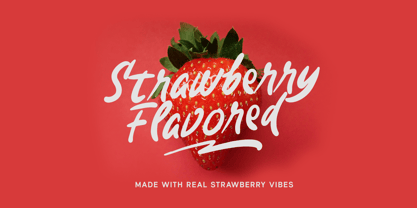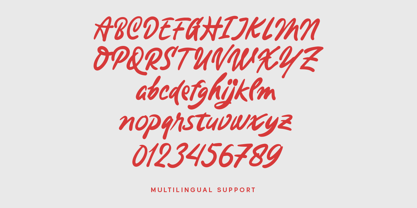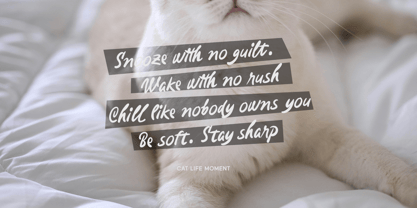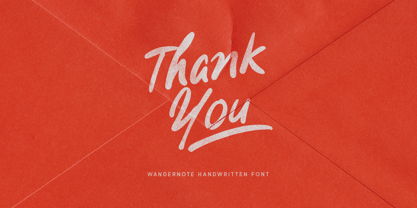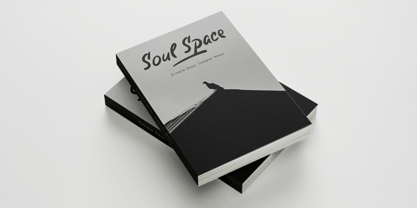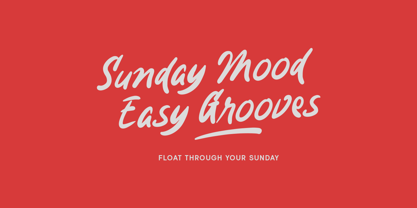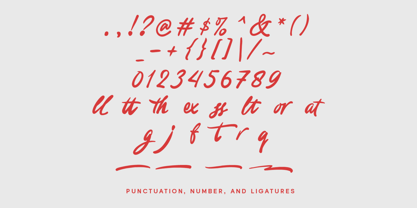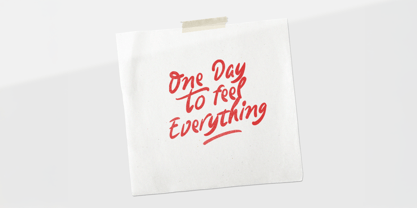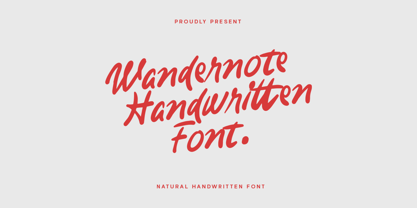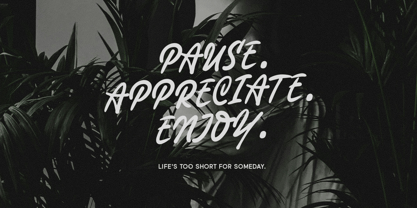
Wandernote
by Letterhend
The Wandernote Font Family was designed by Hendry Juanda and published by Letterhend. Wandernote contains 1 styles. More about this family
Wandernote is a natural handwritten font that captures the essence of casual writing with a fluid and expressive stroke. Featuring a brush-pen style and slightly imperfect forms, this typeface delivers an authentic, personal touch that feels spontaneous yet legible. Its organic rhythm and dynamic baseline make it perfect for projects that need warmth and personality—such as journals, packaging, social media graphics, greeting cards, and lifestyle branding. Whether used for titles or quotes, Wandernote adds a charming and natural flair to your design work.
• Uppercase & lowercase
• Numbers and punctuation
• Alternates Character
• Multilingual support
Designers: Hendry Juanda
Foundry: Letterhend